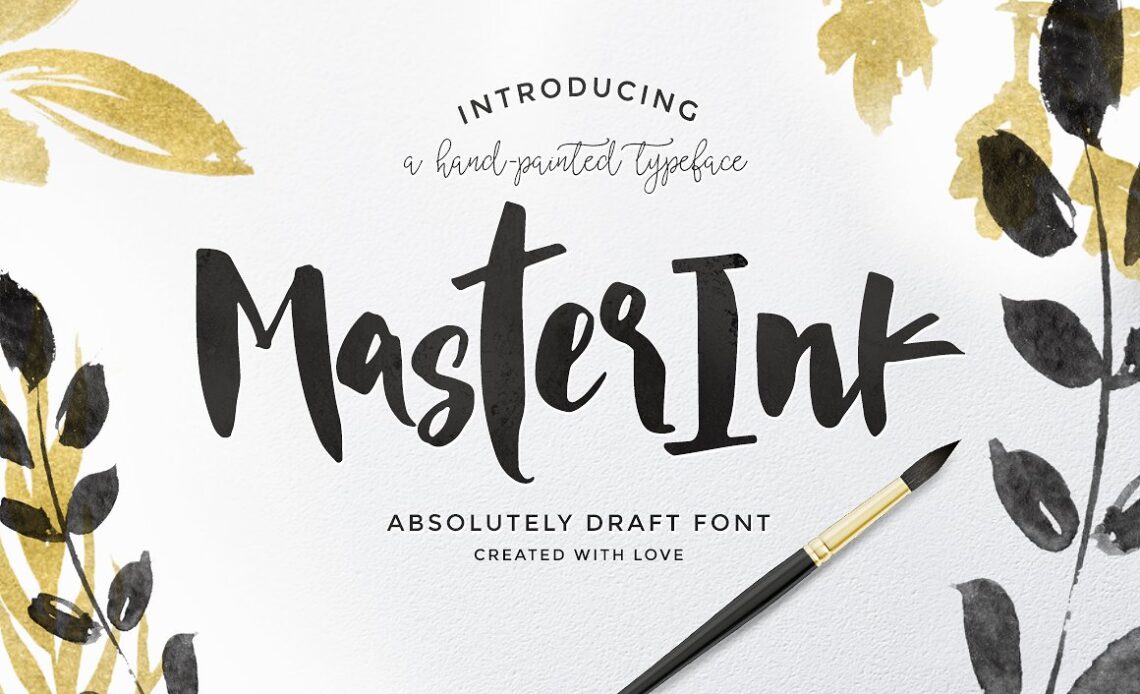
Behold, the MasterInk Font: A Stroke of Creative Brilliance Designed to Captivate
Enter the realm of artistic expression with MasterInk, a brush stroke font that sparks joy and ignites your creative spirit. Crafted with passion and precision, this script font is a visual masterpiece that will elevate your designs, adding a touch of sophistication and charm to your projects. Whether you are a professional designer or simply someone who loves to create, MasterInk is your perfect companion.
Experience the Beauty of Imperfection
MasterInk embraces the beauty of imperfection, showcasing the organic flow of brush strokes, adding a touch of authenticity and intrigue to your work. The splotchy texture of the font adds a unique charm, making each letter a work of art. With MasterInk, your designs will stand out from the crowd, capturing attention with their captivating aesthetics.
A Font for Every Occasion
MasterInk's versatility is truly remarkable. It seamlessly adapts to a myriad of design styles, from playful and whimsical to elegant and timeless. Whether you are creating logos, branding materials, social media posts, or wedding invitations, MasterInk has got you covered. Its adaptability makes it a valuable asset for any creative toolbox.
Unleash Your Imagination
With MasterInk, your imagination has no bounds. Let your creativity soar as you explore the endless possibilities this font offers. Its free-flowing style encourages experimentation, allowing you to create unique and captivating designs that reflect your personal style and vision. MasterInk is your gateway to a world of artistic expression, where your ideas come to life in stunning fashion.
A Touch of Elegance and Charm
MasterInk adds a touch of elegance and charm to everything it graces. Its graceful curves and delicate strokes evoke a sense of sophistication, while the splotchy texture adds a touch of playfulness. Whether you are designing a wedding invitation, a fashion poster, or a product label, MasterInk will elevate your work, leaving a lasting impression on your audience.